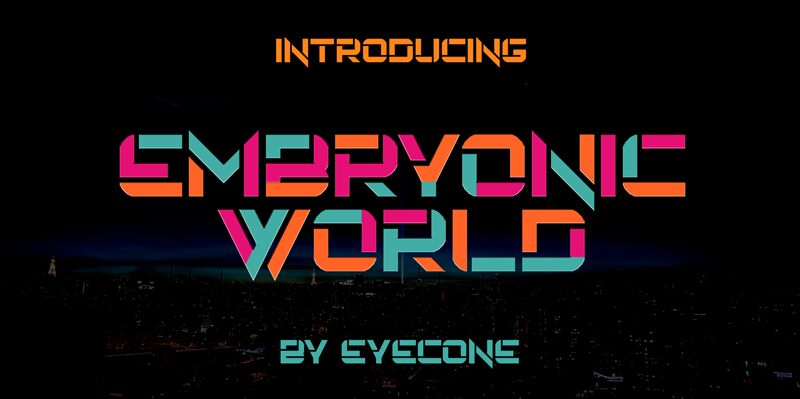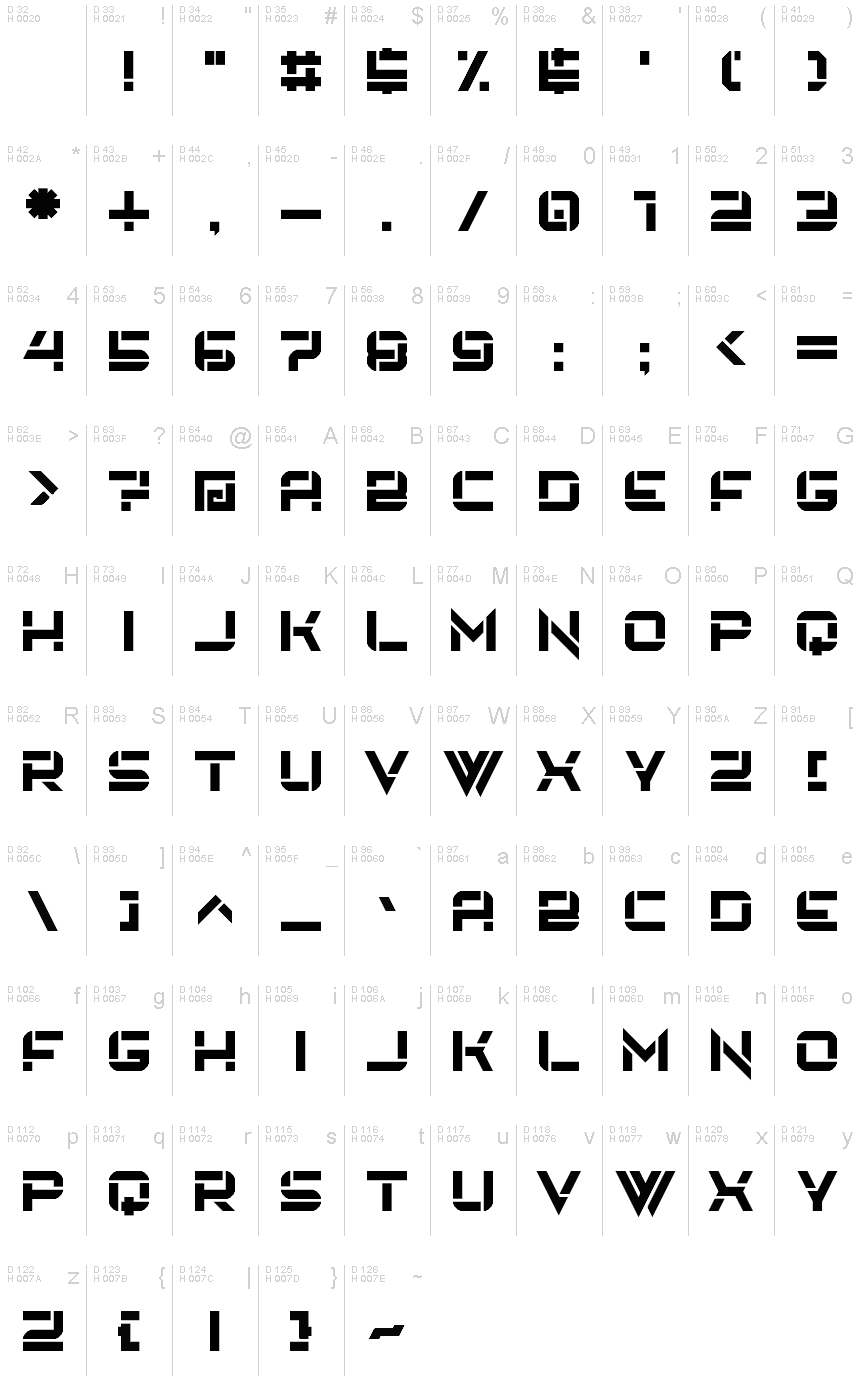
The Embryonic World font is best for logo, title, clothing line and more.
Embryonic World was built with FontStruct LACERATED PLANET, which is based on autotall, which is based on automatt, which is based on Auto Mode, which is based on Auto Techno, which is based on Roadtest, which is based on testt